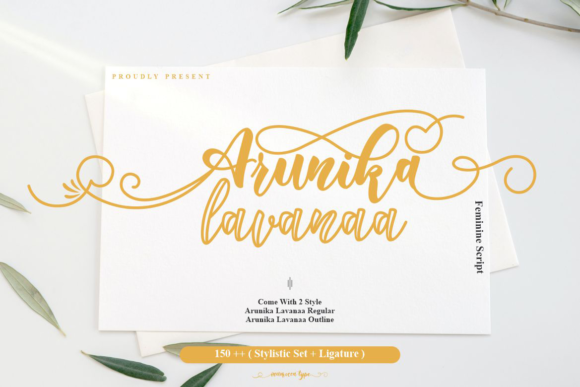
Introducing Arunika Lavanaa Font: The Perfect Choice for Romantic and Personalized Designs
In the world of typography, fonts play a crucial role in conveying emotions and setting the tone for a design. When it comes to creating romantic and personalized designs, a special font can make all the difference. This is where Arunika Lavanaa Font comes in – a beautiful, handwritten font that is perfect for writing wedding invitations, cards, and other designs that require a touch of elegance and love.
What is Arunika Lavanaa Font?
Arunika Lavanaa is a detailed and romantic handwritten font that is designed to add a personal touch to your designs. This font is characterized by its dainty and joyful feel, making it ideal for creating beautiful wedding invitations, cards, and other romantic designs. With its elegant and flowing strokes, Arunika Lavanaa Font is sure to capture the hearts of those who see it.
Key Features of Arunika Lavanaa Font
- Romantic and Personalized: Arunika Lavanaa Font is designed to add a romantic and personalized touch to your designs. Its elegant strokes and beautiful curves make it perfect for creating wedding invitations, cards, and other designs that require a special touch.
- PUA Encoded: Arunika Lavanaa Font is PUA encoded, which means that you can access all of the glyphs and swashes with ease. This feature makes it easy to use the font and customize it to your needs.
- Dainty and Joyful: The font has a dainty and joyful feel, making it perfect for creating beautiful and eye-catching designs.
- Handwritten: Arunika Lavanaa Font is a handwritten font, which gives it a personal and unique touch.
Ideas for Using Arunika Lavanaa Font
Arunika Lavanaa Font is a versatile font that can be used for a variety of design projects. Here are some ideas for using this beautiful font:
- Wedding Invitations: Use Arunika Lavanaa Font to create beautiful and romantic wedding invitations that will set the tone for the big day.
- Cards: Create personalized cards for special occasions such as birthdays, anniversaries, and Valentine’s Day.
- Social Media Graphics: Use Arunika Lavanaa Font to create eye-catching social media graphics that will grab the attention of your followers.
- Logos: Use the font to create a logo for your business or brand that is elegant and sophisticated.
Tips and Tricks for Using Arunika Lavanaa Font
Here are some tips and tricks for using Arunika Lavanaa Font:
- Pair it with Other Fonts: Pair Arunika Lavanaa Font with other fonts to create a unique and eye-catching design.
- Experiment with Colors: Experiment with different colors to find the perfect combination that works with Arunika Lavanaa Font.
- Use it for Headings: Use Arunika Lavanaa Font for headings and titles to add a touch of elegance and sophistication.
- Don’t Overuse it: Don’t overuse Arunika Lavanaa Font – use it sparingly to create a greater impact.
Benefits of Using Arunika Lavanaa Font
Here are some benefits of using Arunika Lavanaa Font:
- Unique and Personalized: Arunika Lavanaa Font is a unique and personalized font that will set your designs apart from others.
- Elegant and Sophisticated: The font has an elegant and sophisticated feel, making it perfect for creating high-end designs.
- Easy to Use: Arunika Lavanaa Font is easy to use and customize, making it perfect for designers of all levels.
- PUA Encoded: The font is PUA encoded, which means that you can access all of the glyphs and swashes with ease.
In conclusion, Arunika Lavanaa Font is a beautiful and romantic handwritten font that is perfect for creating personalized and elegant designs. With its dainty and joyful feel, this font is ideal for writing wedding invitations, cards, and other designs that require a special touch. Its PUA encoded feature makes it easy to use and customize, and its unique and elegant feel makes it perfect for creating high-end designs.